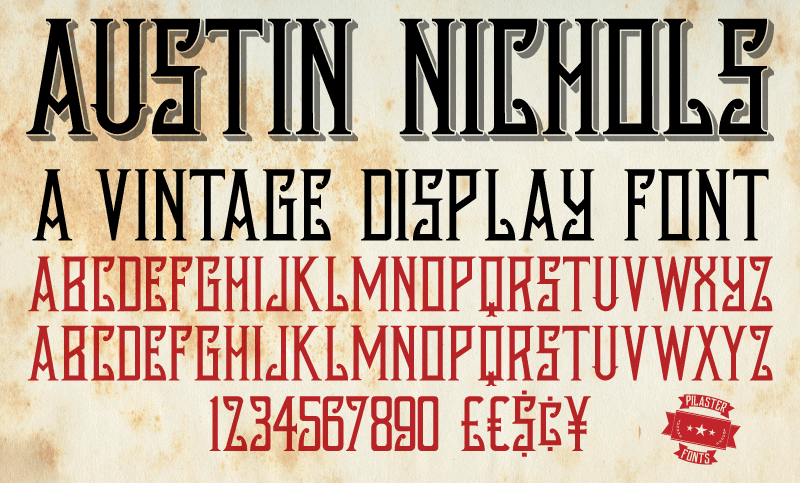
Preview and download Austin Nichols Font. Created by Pilaster Davy in Fancy Retro styles with Free for personal use license.
Font name: | Austin Nichols |
Author: | Pilaster Davy |
Austin Nichols is inspired by the hand lettering from an Austin, Nichols & Company Advertising Cover. Ideal for any vintage/retro/gothic projects. Austin Nichols is served free for personal use and served ‘as is’. If you like Austin Nichols, please feel free to make a ‘domestic brew’ sized donation to the ‘buy the author a beer fund’ using the donate button. For any commercial use, should you find one for it, a donation (How much is up to you) should be considered mandatory! Enjoy! Pil |